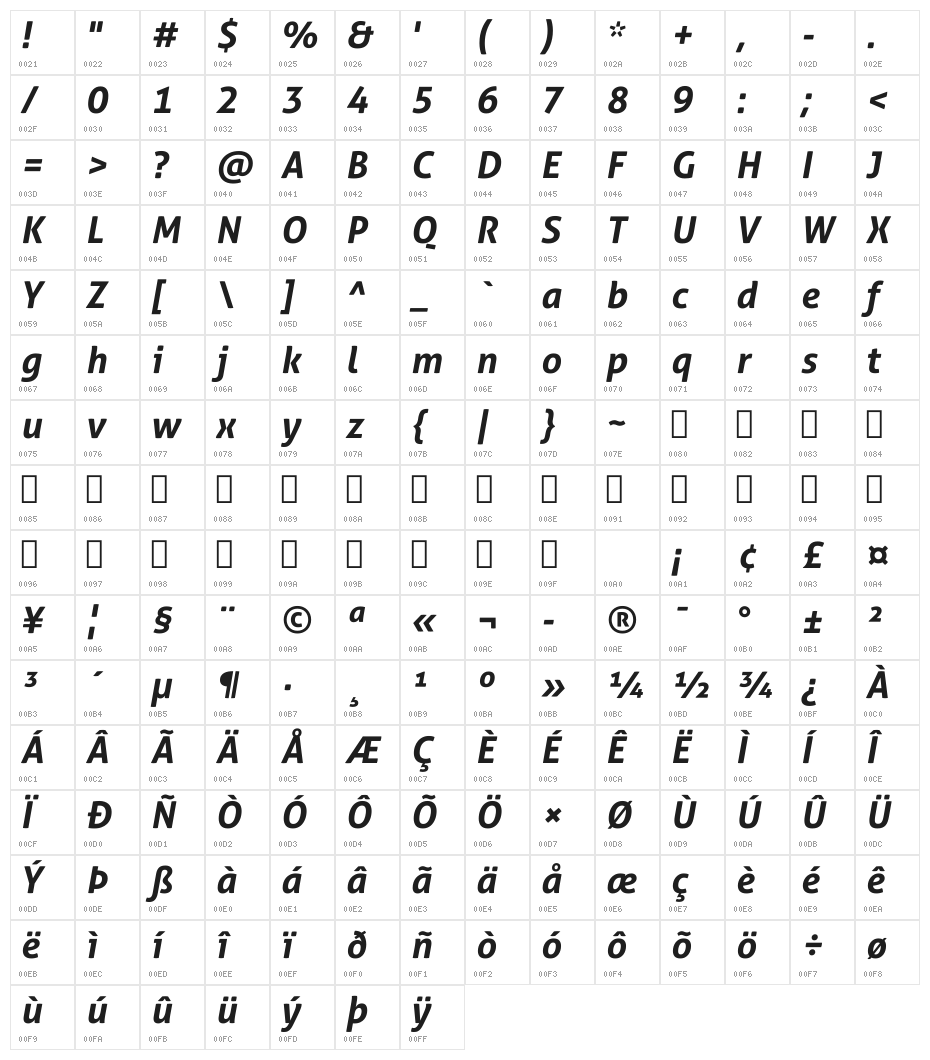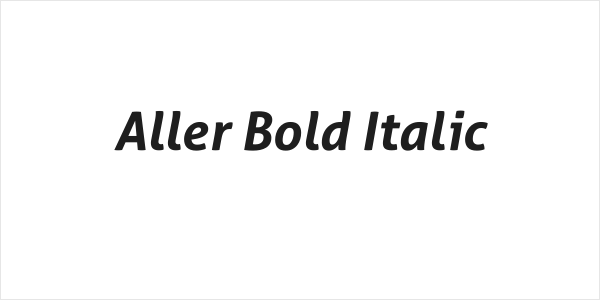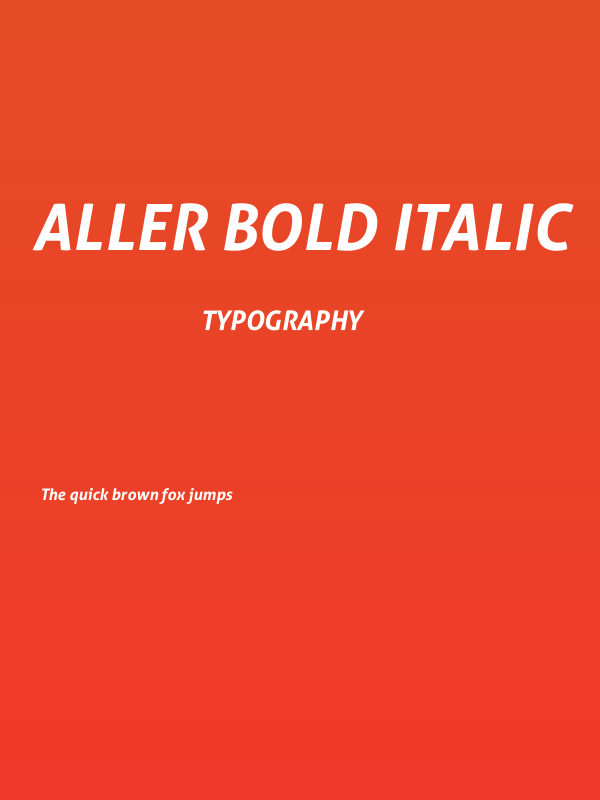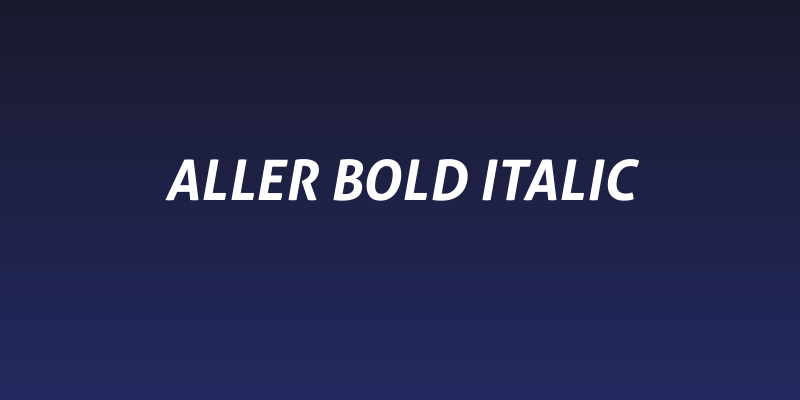
Aller Bold Italic Font
Aller Bold Italic Description
This font features a bold and italicized style, offering a dynamic and modern appearance. The characters are slightly slanted, enhancing the italic effect, while maintaining a strong and confident presence due to the bold weight. The sans-serif design ensures clarity and readability, making it suitable for various applications. The strokes are consistent, with medium contrast, providing a balanced look. The character spacing is normal, allowing for easy readability without appearing cramped. This font is versatile and can be used effectively in both digital and print media.
| Proposed Projects | Ideal for branding, advertising, headlines, and digital content where a strong and modern impression is desired. |